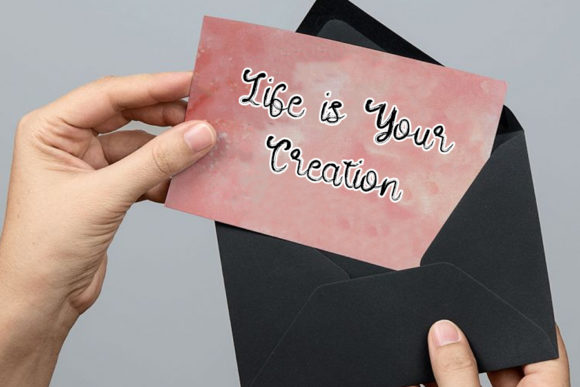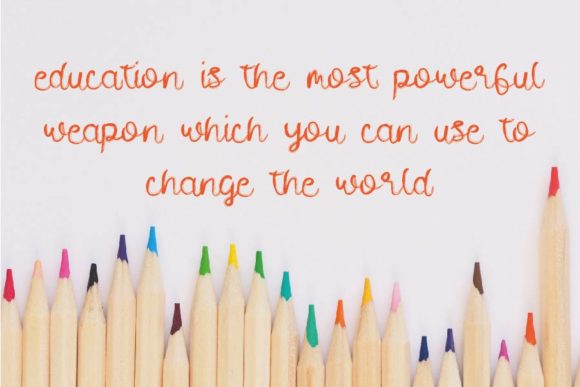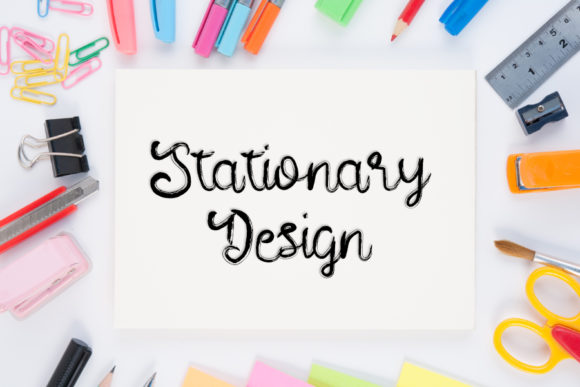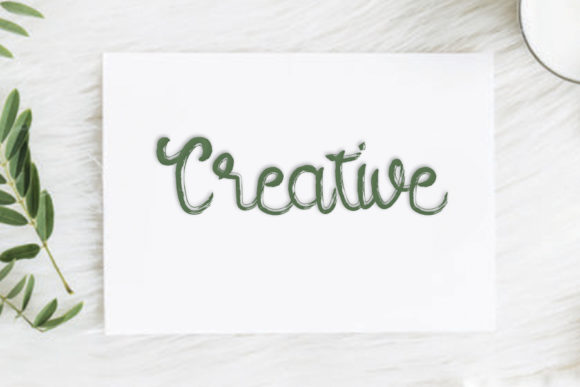
Welcome Winter Font
Welcome Winter is a beautiful brushed handwritten font. Incredibly unique yet versatile, this font will make each of your designs come alive.